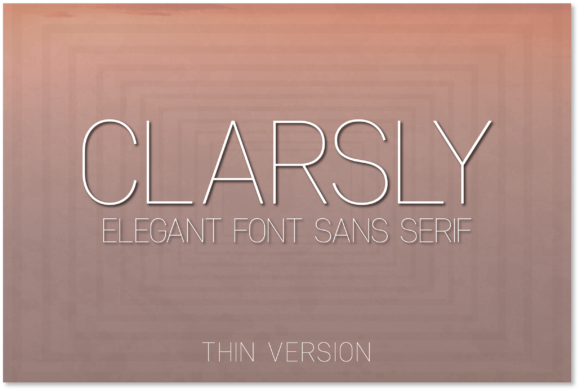
Clarsly Thin Font
Introducing Clarsly Thin Font, a breathtaking creation from Huntype that harmoniously blends minimalism and elegance. This modern sans serif font is an artistic masterpiece, meticulously designed to elevate your designs with its timeless appeal.
Whether you're crafting captivating headlines that demand attention or composing body text that exudes sophistication, Clarsly Thin Font is your perfect companion. Its versatile nature empowers you to effortlessly adapt it to a myriad of design projects, ensuring your creations stand out with a touch of understated brilliance.
With Clarsly Thin Font, you'll discover a world of creative possibilities. Its sleek lines and balanced proportions effortlessly draw attention, while its subtle nuances add a touch of sophistication that sets your designs apart from the ordinary.
Experience the allure of Clarsly Thin Font today and embark on a captivating design journey that combines timeless style with modern flair. Let this extraordinary font elevate your creations, igniting the imagination of your audience.